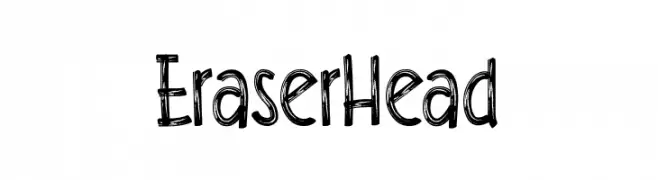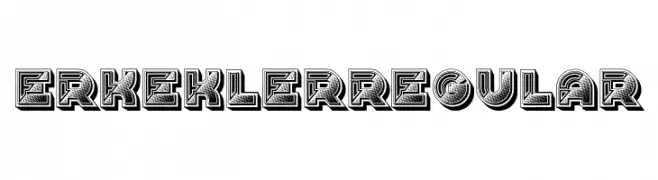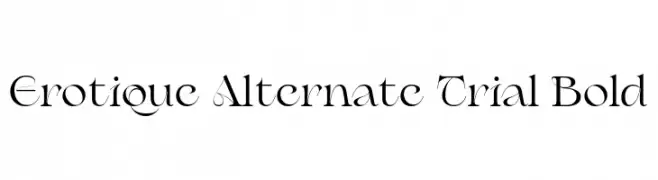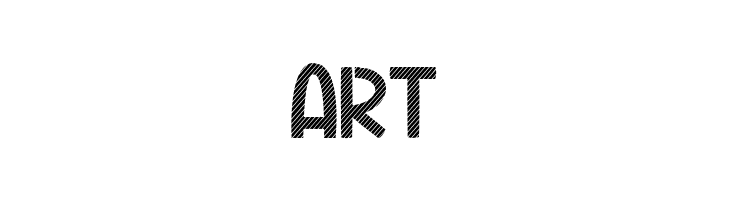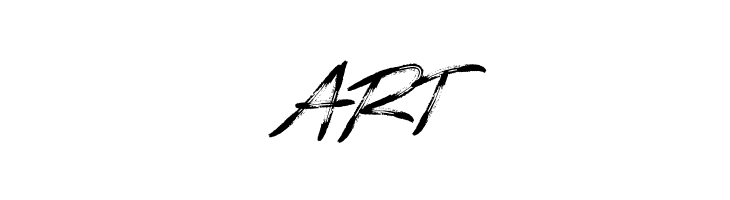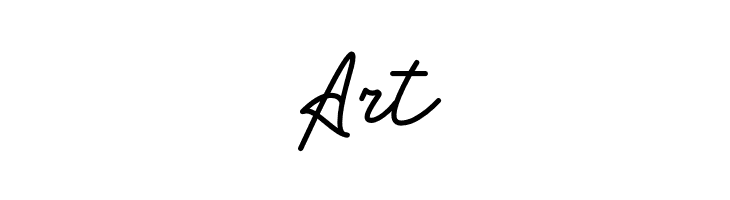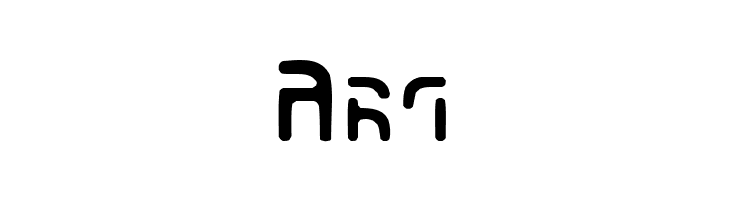
A modern, geometric font with bold lines and rounded edges, perfect for futuristic designs.
A playful, hand-drawn font with a sketch-like appearance.
A bold, modern font with a unique diagonal stripe pattern.
A bold, decorative font with a 3D effect and intricate patterns.
A cursive, handwritten-style font with elegant, flowing characters.
A bold, brush-style handwritten font with dynamic strokes.
A futuristic, geometric font with rounded edges and a bold, stencil-like appearance.
An elegant serif font with decorative swirls and classic elements.
An elegant and sophisticated font with modern and classic elements.
A monoline font with elegant curves and artistic flair, blending traditional and modern elements.